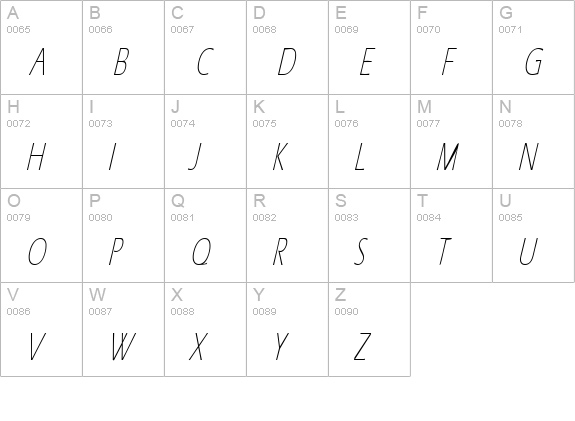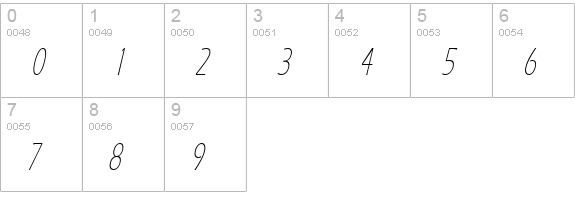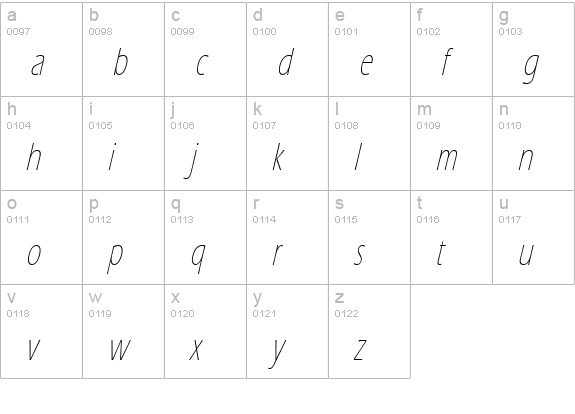
Eric Lite Thin Italic is a delicate, low-contrast, italic variant in the Eric typeface family \xE2\x80\x94 well suited to fashion editorial, minimal branding, and high-contrast display.
The Eric Lite Thin Italic font exudes elegance and sophistication with its delicate and stylish appearance. Its slender, italicized design adds a touch of modernity to any project, making it perfect for fashion, beauty, or luxury branding. The graceful curves and unique letterforms of this font make it a versatile choice for both print and digital designs. And the best part? Eric Lite Thin Italic font is completely free to download at FontsMarket.com! Whether you're a designer looking to elevate your typography game or a business owner seeking a chic font for your branding materials, this font is a fantastic choice. Don't miss out on the opportunity to enhance your designs with this exquisite typeface. Download Eric Lite Thin Italic font today and let your creativity shine!